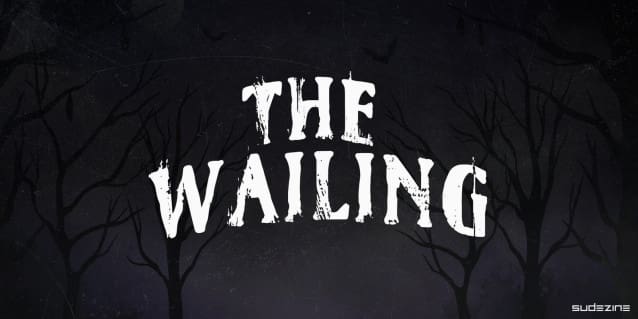
SD Wailing Font
SD Wailing Font is a playful hand-drawn typeface. Use logos, quotes, invitations, greeting cards, journals, posters, clothing, and more. This font will make your designs playful and fun!